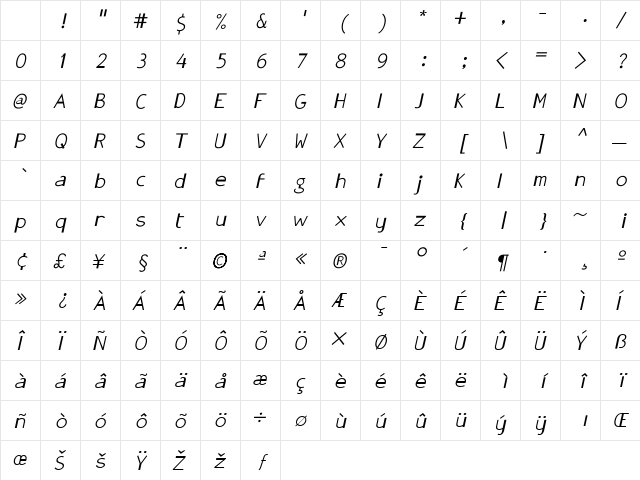
Complete GonzaPlus Medium Italic glyph index. Displaying only characters natively supported by GonzaPlus Medium Italic font.
GonzaPlus is a composed and adaptable typeface that performs quietly and consistently across a wide range of design contexts. The slanted form adds forward momentum and visual energy.